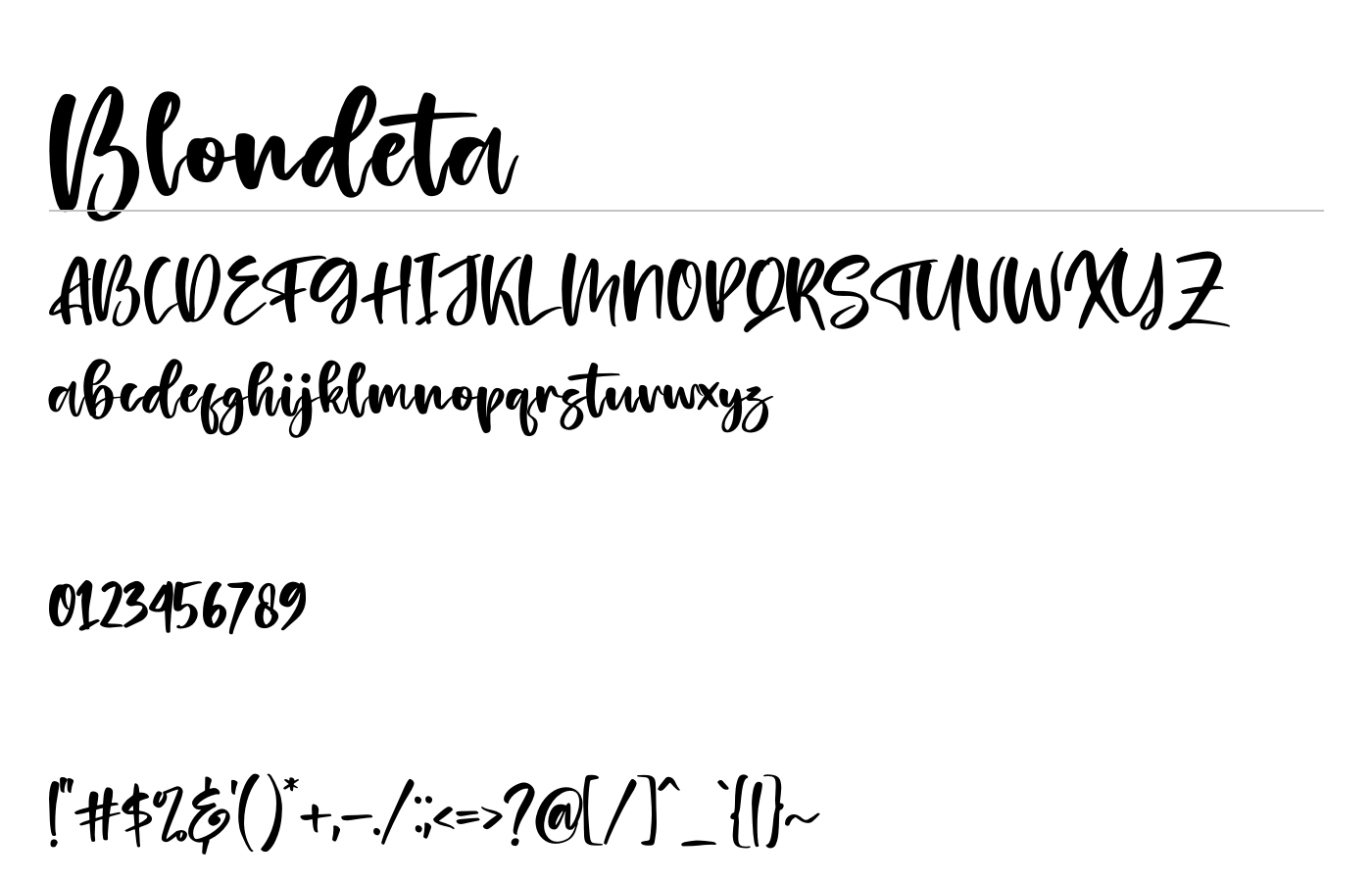
Blondeta is a lively, brush-style script font characterized by its bold weight and smooth, flowing strokes that create a playful yet elegant handwritten look. Its natural, casual feel with high contrast and rounded edges makes it perfect for creative branding, invitations, and modern designs that seek a friendly and personal touch. This font works beautifully in headlines, logos, and packaging where a warm, approachable style is desired.
Blondeta Font